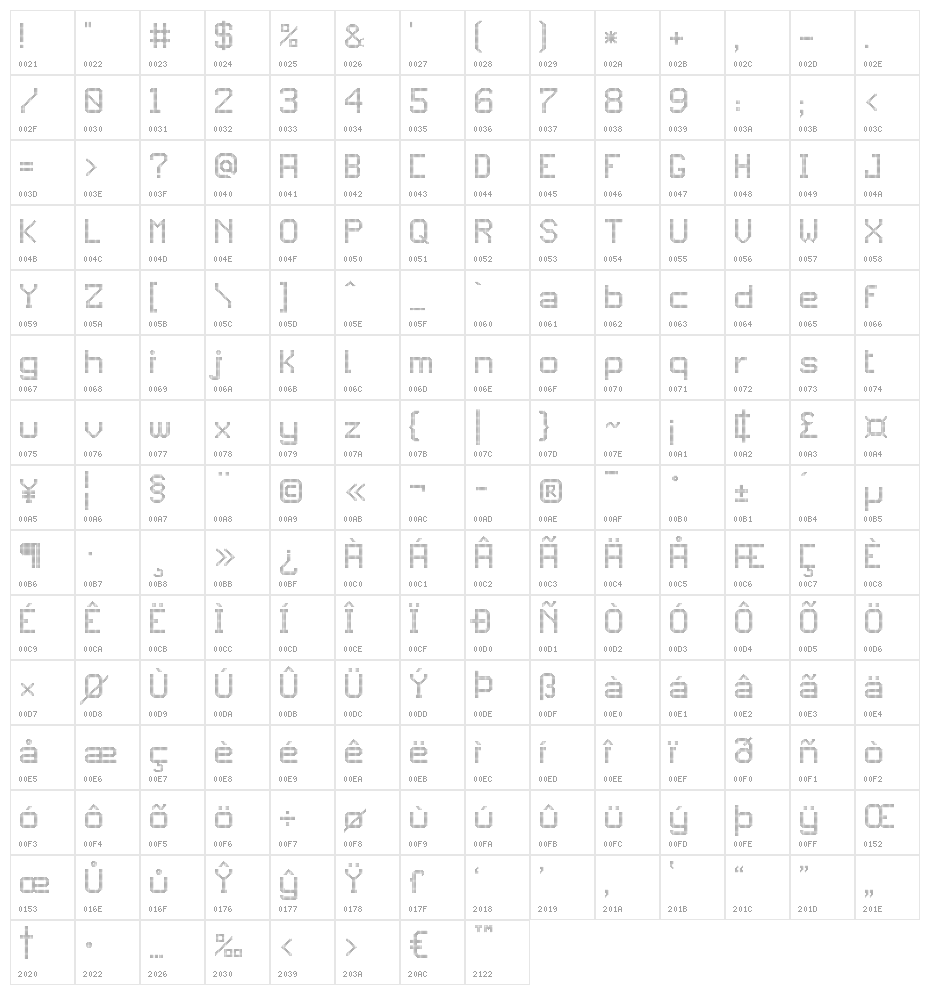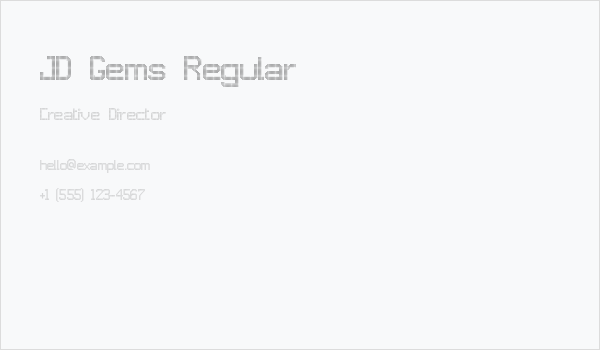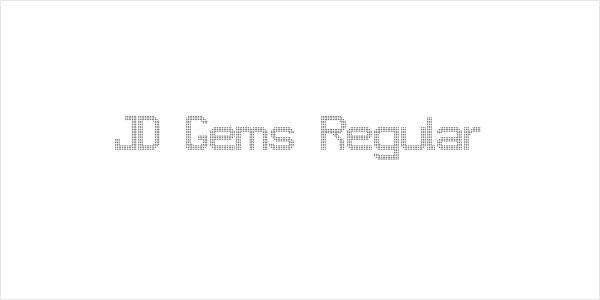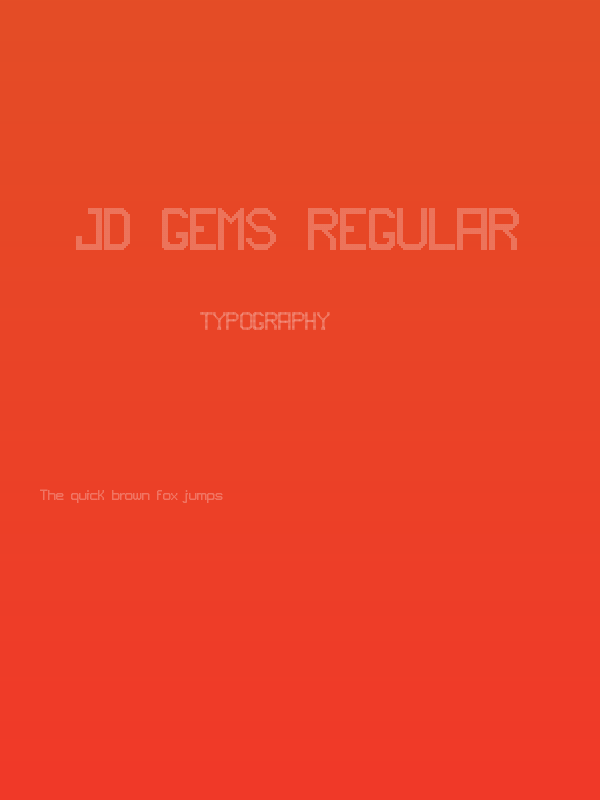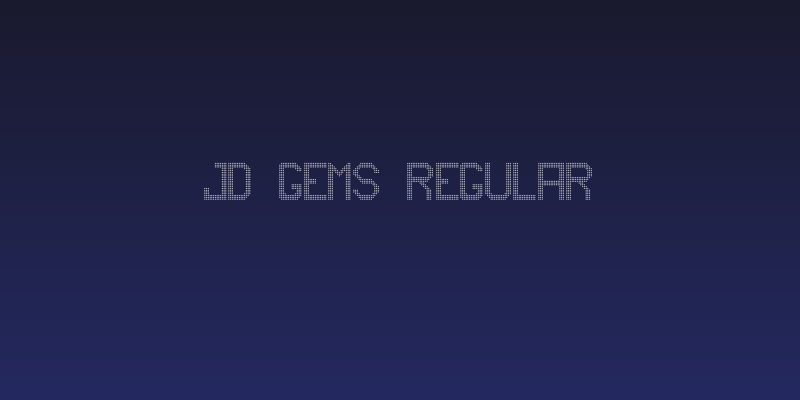
JD Gems Regular Font
JD Gems Regular Description
This font features a unique dotted pattern that forms each character, giving it a distinct and modern appearance. The characters are composed of evenly spaced dots, creating a pixelated effect that is both eye-catching and innovative. The uppercase and lowercase letters maintain a consistent style, with clean lines and a geometric structure. Numbers and special characters are also designed with the same dotted style, ensuring uniformity across all elements. This font is ideal for projects that require a futuristic or digital aesthetic, as its design is reminiscent of LED displays or digital screens.
| Use Case | Headlines, Logos, Digital displays |
| Proposed Projects | Ideal for digital displays, tech-themed designs, posters, and modern branding projects. |